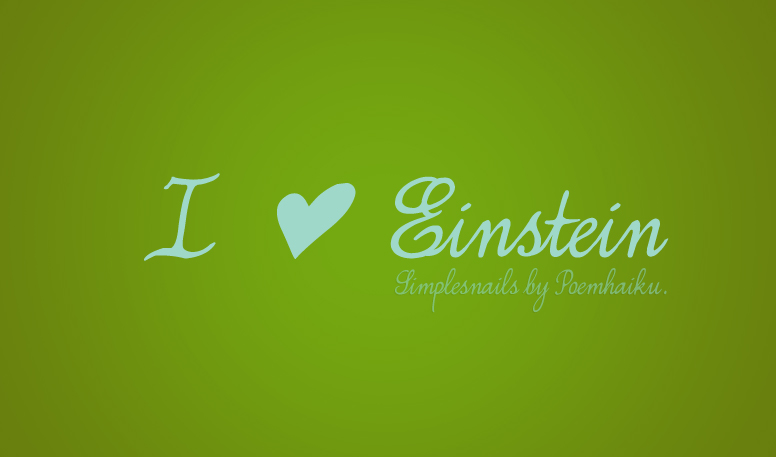
Preview and download Simplesnails Font. Created by Poemhaiku in Script Handwritten styles with Free for personal use license.
Updated 28/07/2012. Download version 3.0 here: http://kuakon.deviantart.com/#/d5948x6 Hello, Simplesnails is the newest script font that I created of my handwriting. IT FEATURES EXTENSIVE LANGUAGE SUPPORT :) Feel free to use this font for personal use, however please credit where it's due and link back to me if you do. Contact me at: haikuume@gmail.com if you notice any errors or for purchasing commercial license(s). Thank you so much! |